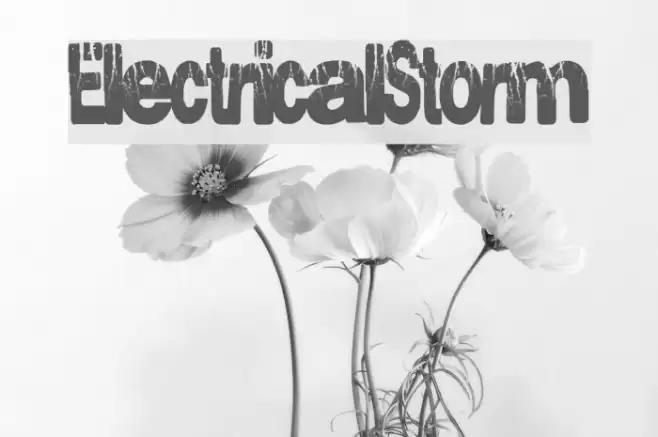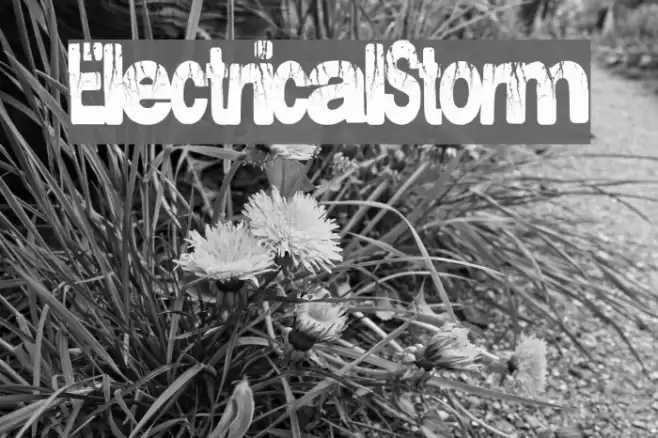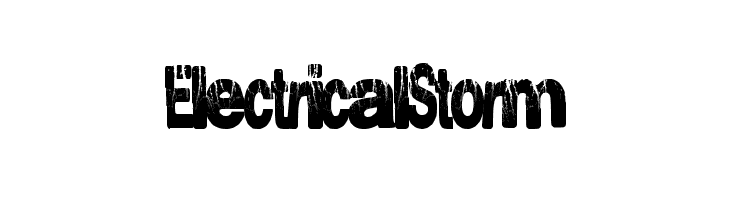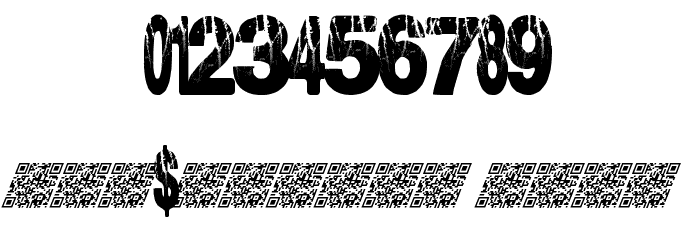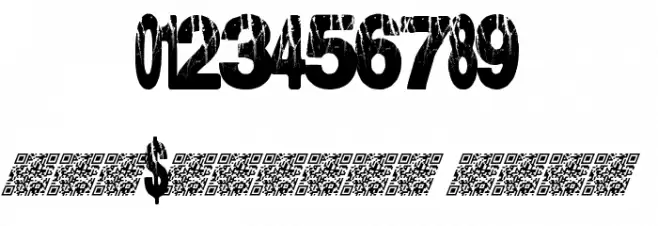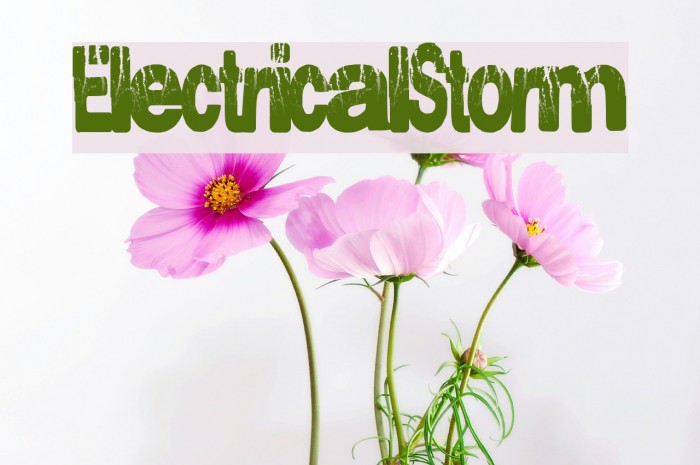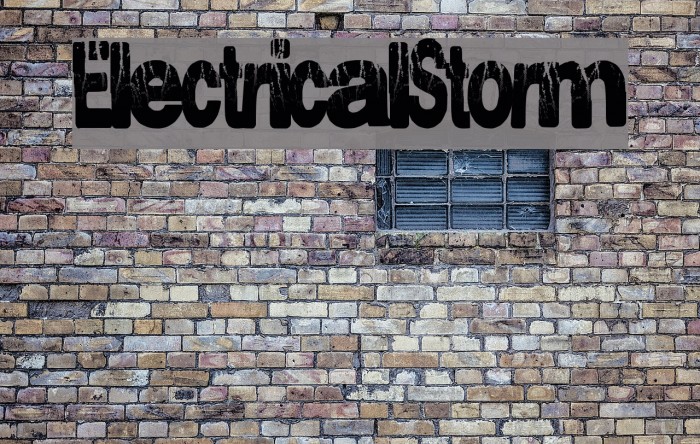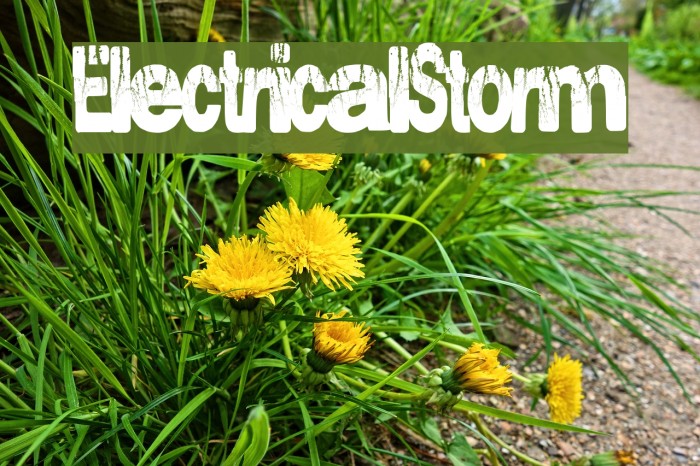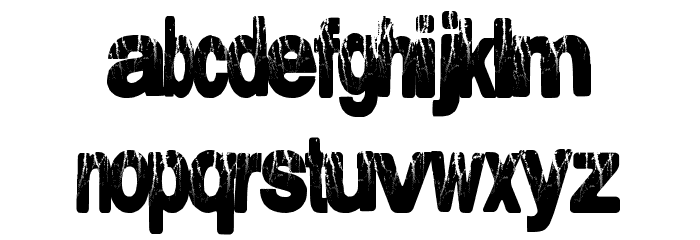
ElectricalStorm Font
ElectricalStorm Description
This font features a bold, distressed style with a grunge texture that gives it a rugged and edgy appearance. The characters are thick and substantial, with a rough, weathered look that suggests wear and tear. This design choice adds a dynamic and energetic feel, making it suitable for projects that require a strong visual impact. The uppercase and lowercase letters maintain a consistent style, with the texture applied uniformly across all characters. The numbers and special characters also share this distressed aesthetic, ensuring a cohesive look throughout.
A bold, distressed font with a grunge texture for an edgy appearance from Distorted Eroded fonts.
- Proposed Projects: Ideal for music album covers, posters, urban-themed designs, and branding that requires a gritty, impactful look.